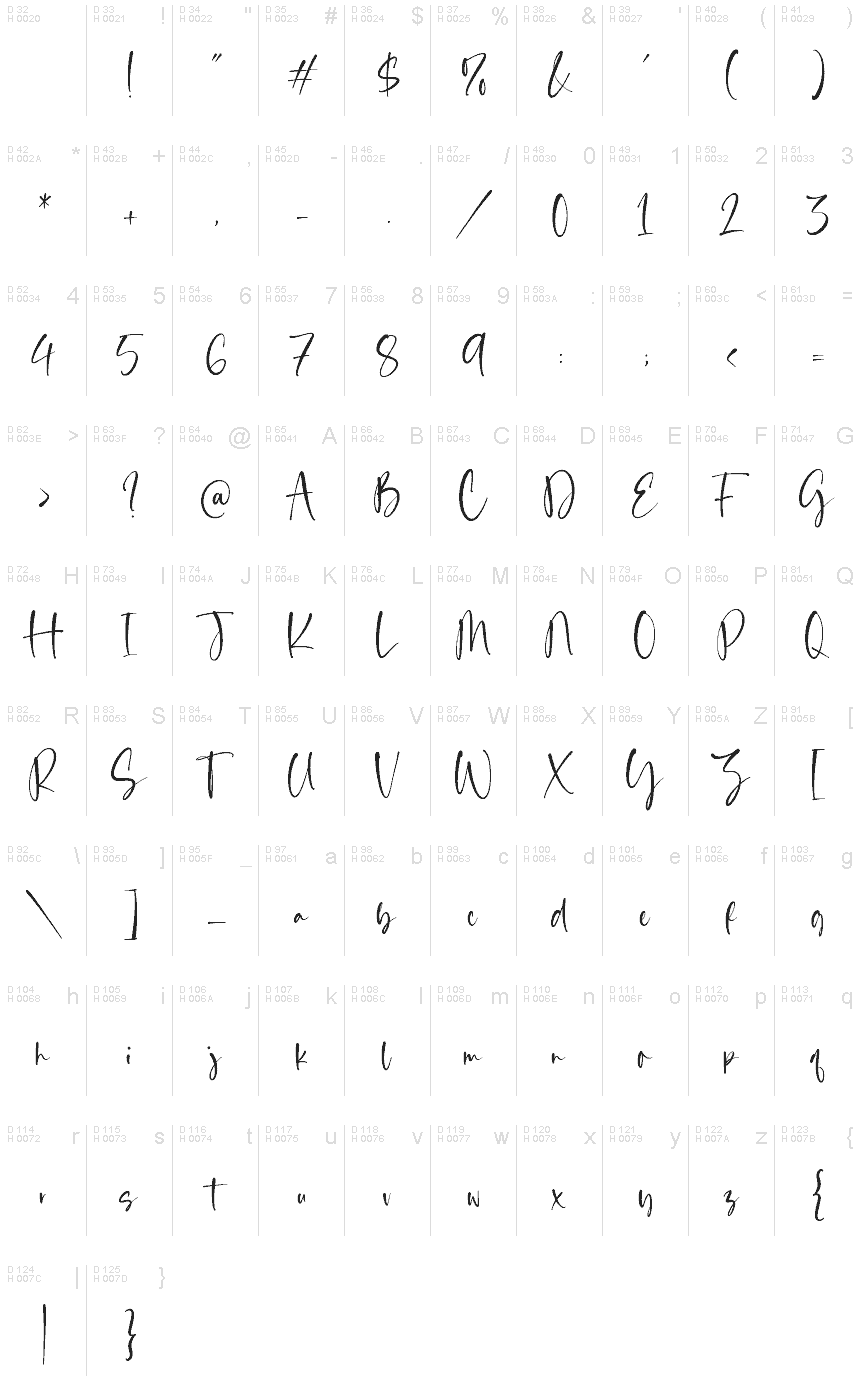
Classy Feathers
Classy Feathers font by Timur Type is a handwritten free font with elegant and modern lines. The typeface features a casual feel, expressive flourishes, and a beautiful handwritten aesthetic, making it perfect for contemporary applications in branding and personal projects.
Classy Feathers offers premium features:
- Full set of standard alphabet and punctuation
Classy Feathers also supports multilingual characters.